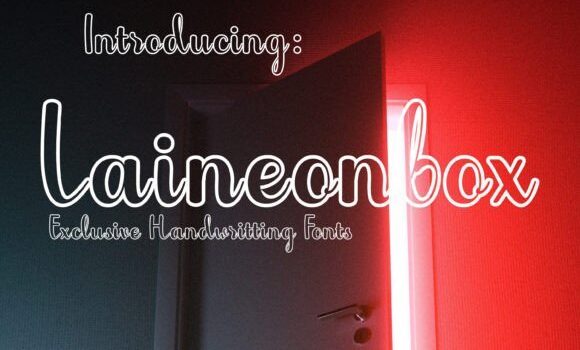
laineonbox
Laineonbox Font – Free Download Introduction to Laineonbox Font Illuminated font design with handwritten characters, presenting “Laineonbox”. 📸 Preview Gallery 2 images 📌 Product Name Laineonbox Font 👤 Author Font Seven 📂 Category Explore ⬇️ Download Laineonbox Font FREE Free